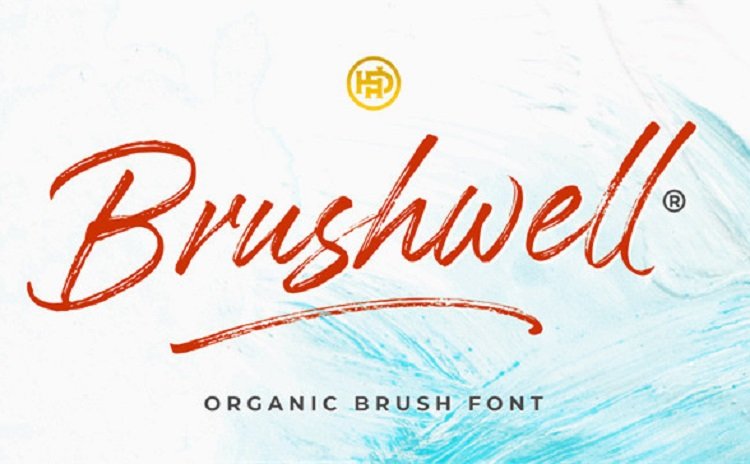
Brushwell Brush Font
Start a new day with a brush font. This is a rustic, stylish handwritten brush font, with a textured brush and a thin size, matching soft quotes and looking feminine. It’s made by handwriting on paper with a coarse type brush, to produce a consistent texture.
Introducing Brushwell Font. It’s designed and shared by hptypework. It’s perfectly suited to signature, stationery, logo, typography quotes, magazine or book cover, website header, clothing, branding, packaging design and more.